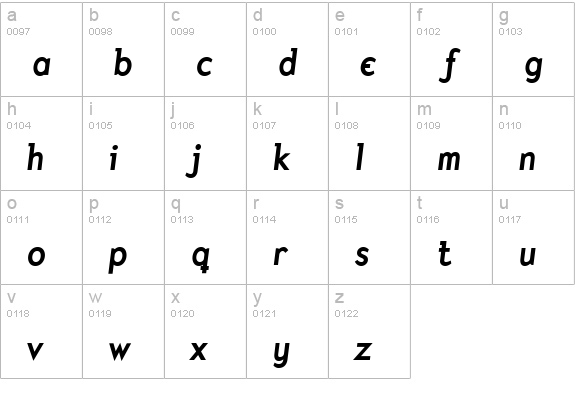
MercuryAlternativeBoldItalic Font Details
Introducing MercuryAlternativeBoldItalic font - a striking typeface that exudes elegance and sophistication. Its bold and italic design adds a touch of modernity and flair to any project, making it perfect for headers, titles, and other eye-catching elements. The sleek curves and sharp angles of this font create a visually appealing look that commands attention. What sets MercuryAlternativeBoldItalic font apart is not only its stunning aesthetics but also its versatility. Whether you're designing a website, creating a poster, or crafting a logo, this font will elevate your work to new heights. Its unique style allows for endless creative possibilities, making it a must-have for any designer or creative professional. And the best part? MercuryAlternativeBoldItalic font is completely free to download at FontsMarket.com. Yes, you read that right - you can access this premium font at no cost, making it accessible to everyone looking to add a touch of sophistication to their projects. Don't miss out on this opportunity to enhance your designs with the beauty and elegance of MercuryAlternativeBoldItalic font. Download it today and see the difference it can make!